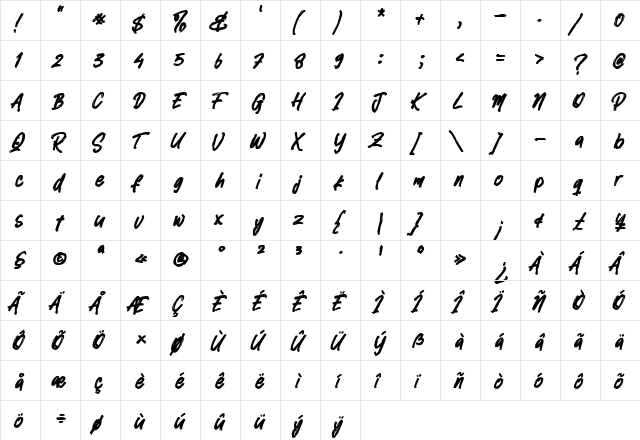
Silent Woods Regular
Design Context for Silent Woods Typeface
Silent Woods echoes the hand-painted signage and woodblock typography of the American frontier, with a warm, rugged personality.
Perfect for barbecue restaurants, country music branding, vintage poster design, and rustic packaging.
Font Pairing: Combine Silent Woods with a simple slab or neutral sans — period-accurate companions reinforce the vintage feel without competing for attention.
Pro Tip: Pair Silent Woods with aged textures or distressed backgrounds to amplify its vintage personality.